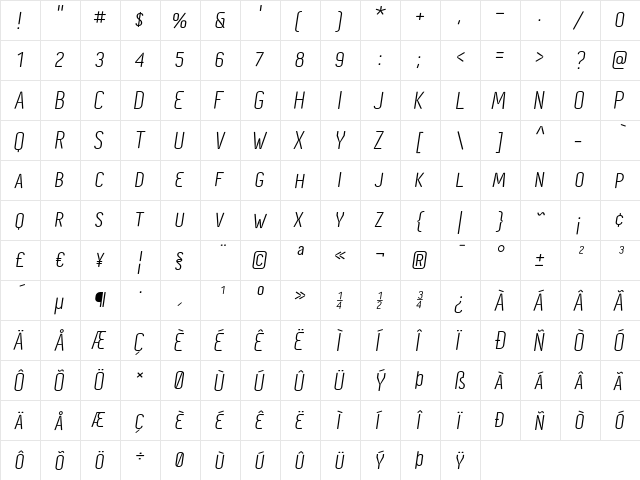
Cynapse Pro SC Italic
Design Context for Cynapse Pro SC Typeface
Cynapse Pro SC takes a measured approach to typography — its balanced proportions and neutral character make it a reliable workhorse for both digital and print work. The dynamic lean of this cut emphasises speed and emphasis in any layout.
Pro Tip: Try Cynapse Pro SC for annotation and caption copy alongside an upright companion — the contrast in angle creates a dynamic but ordered typographic system.